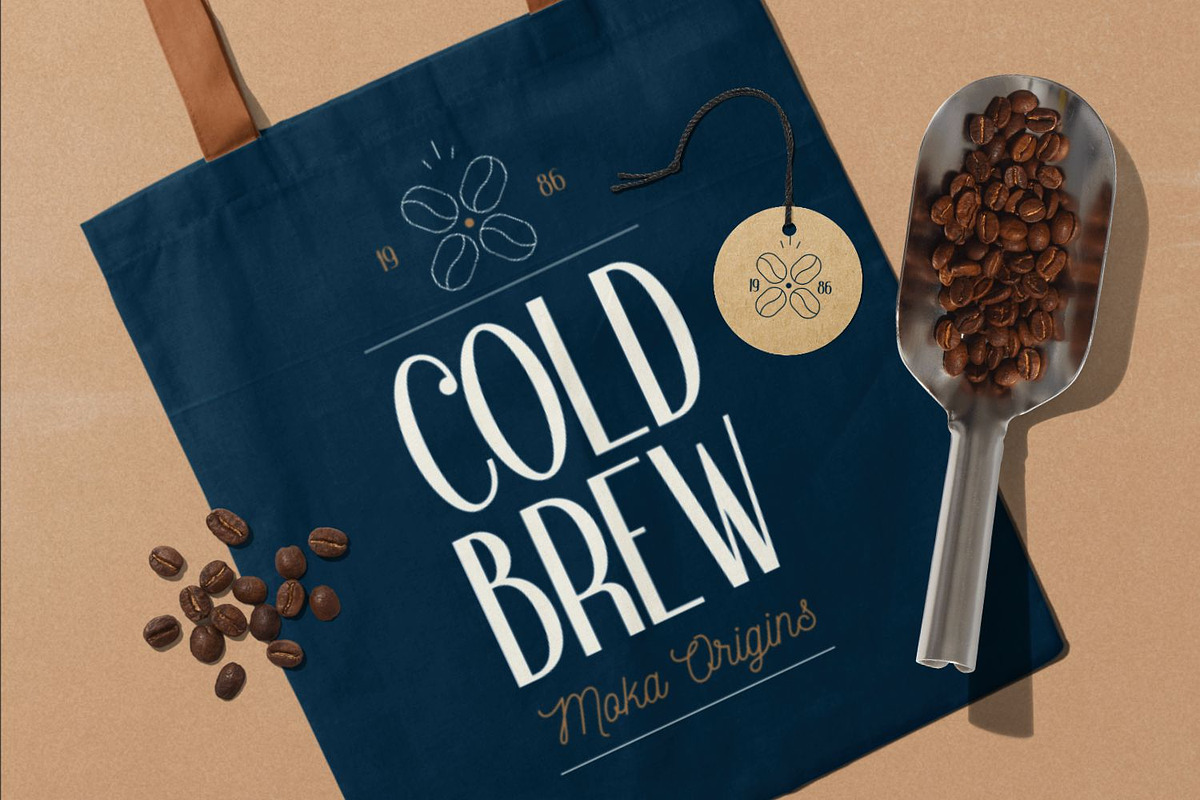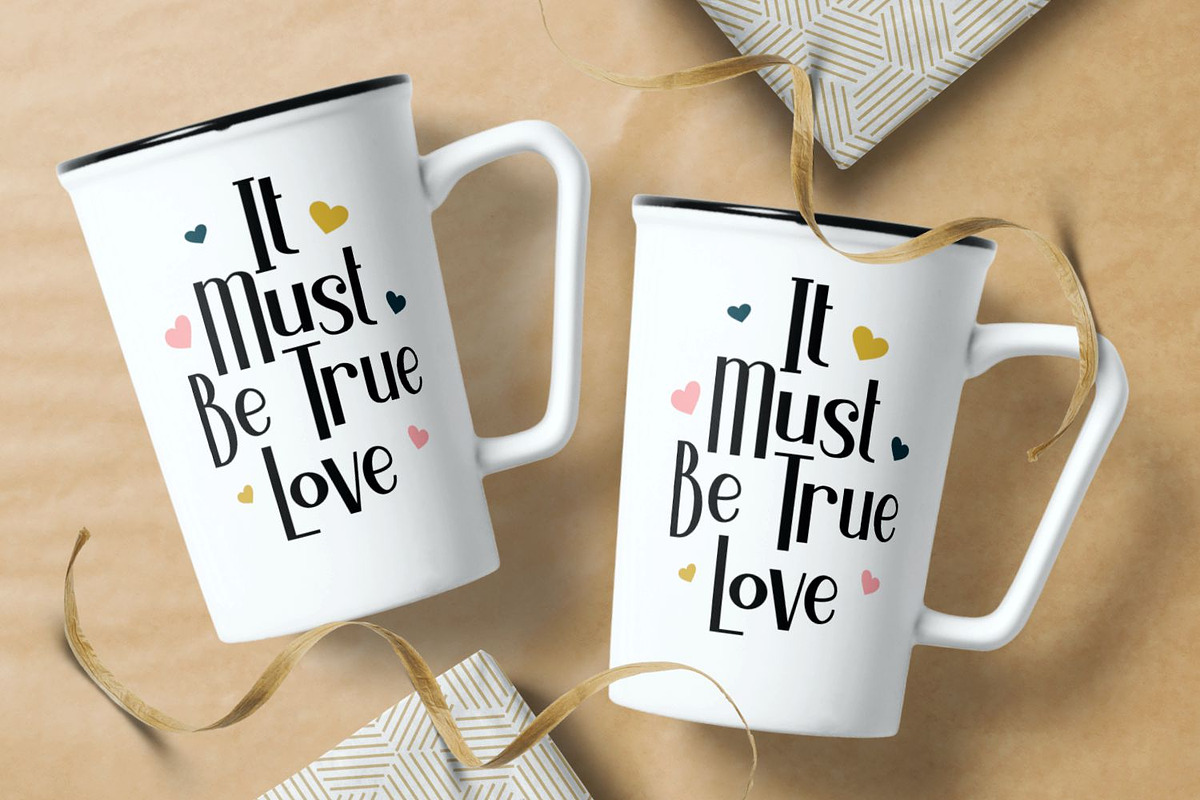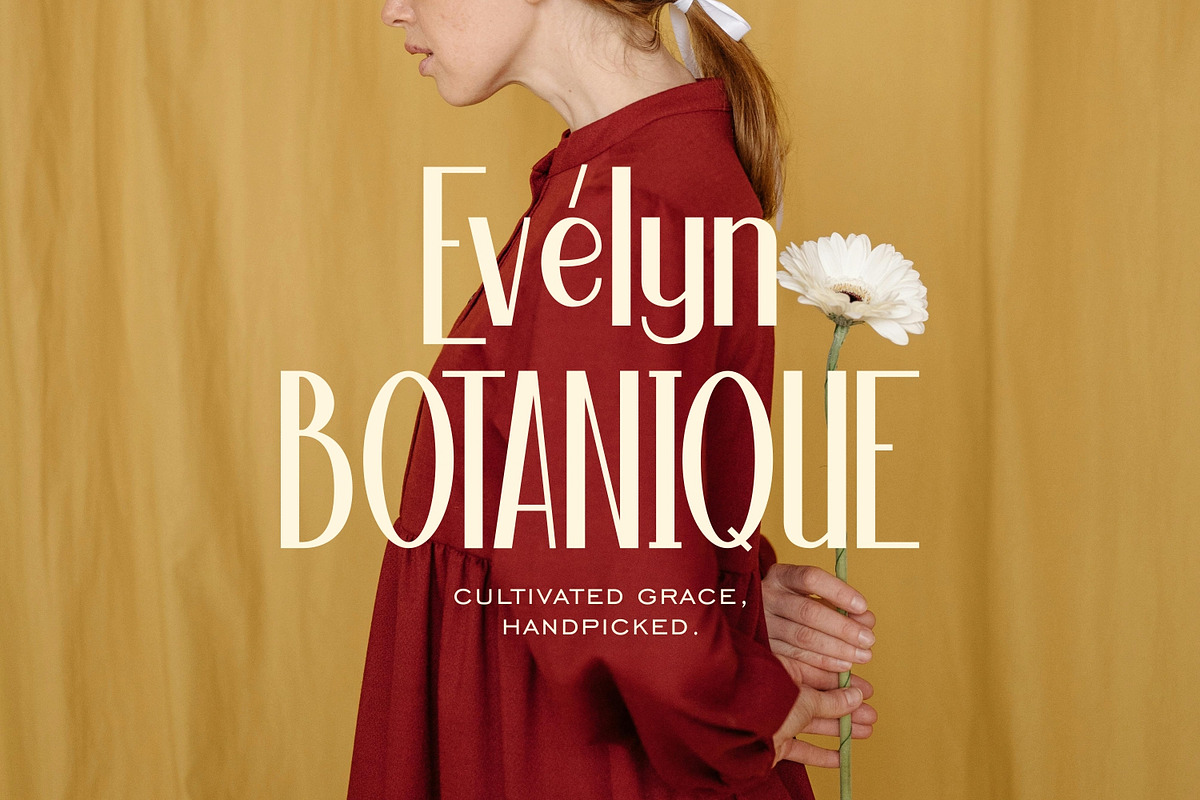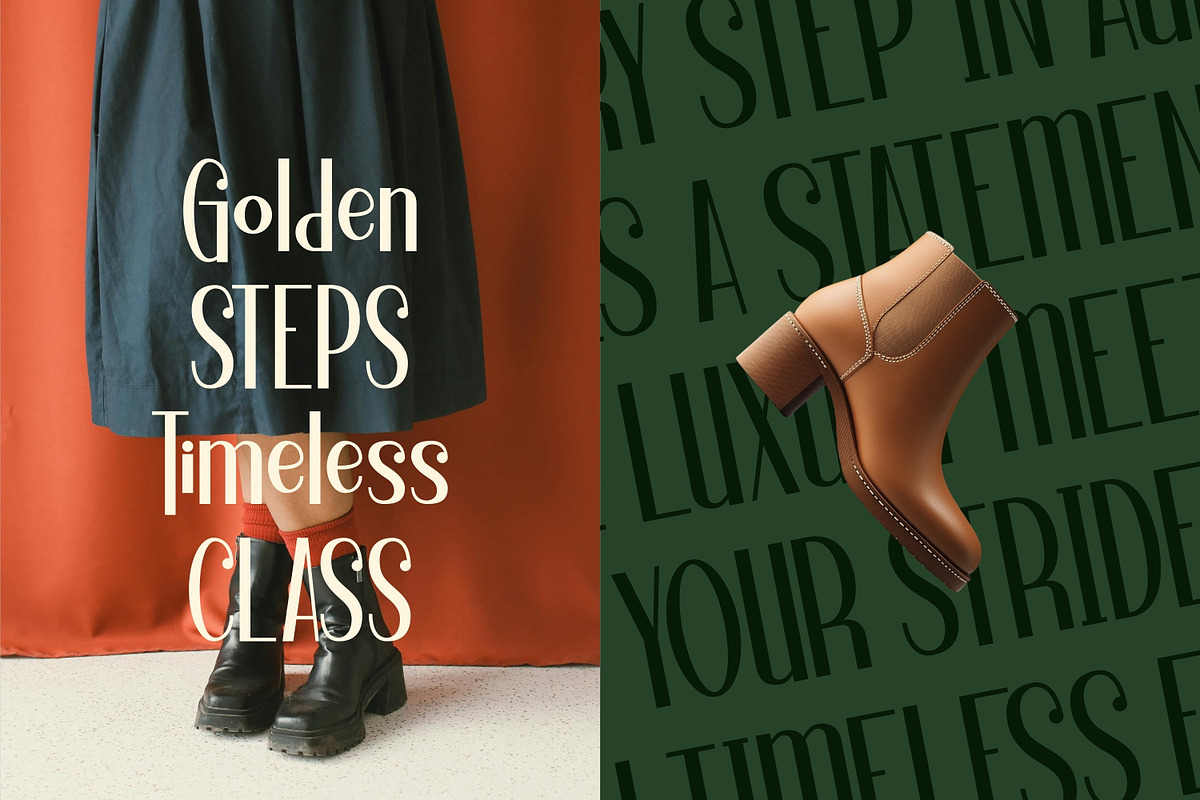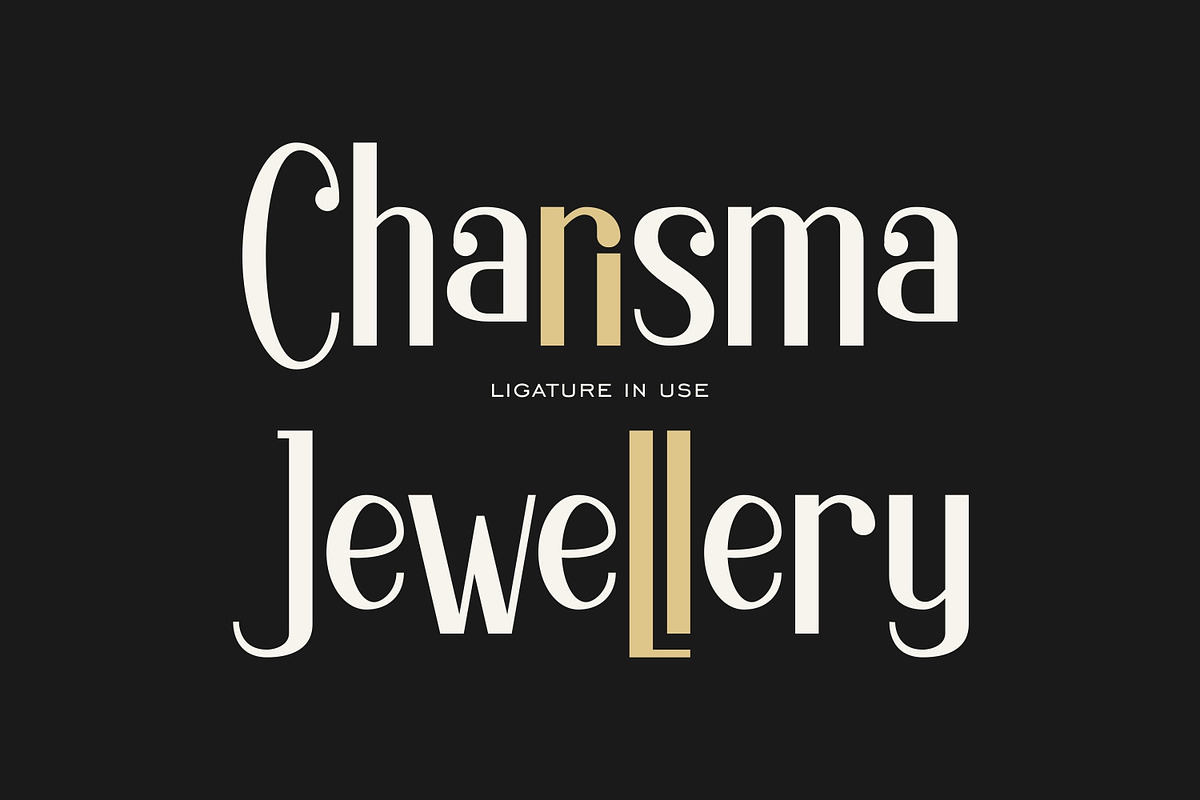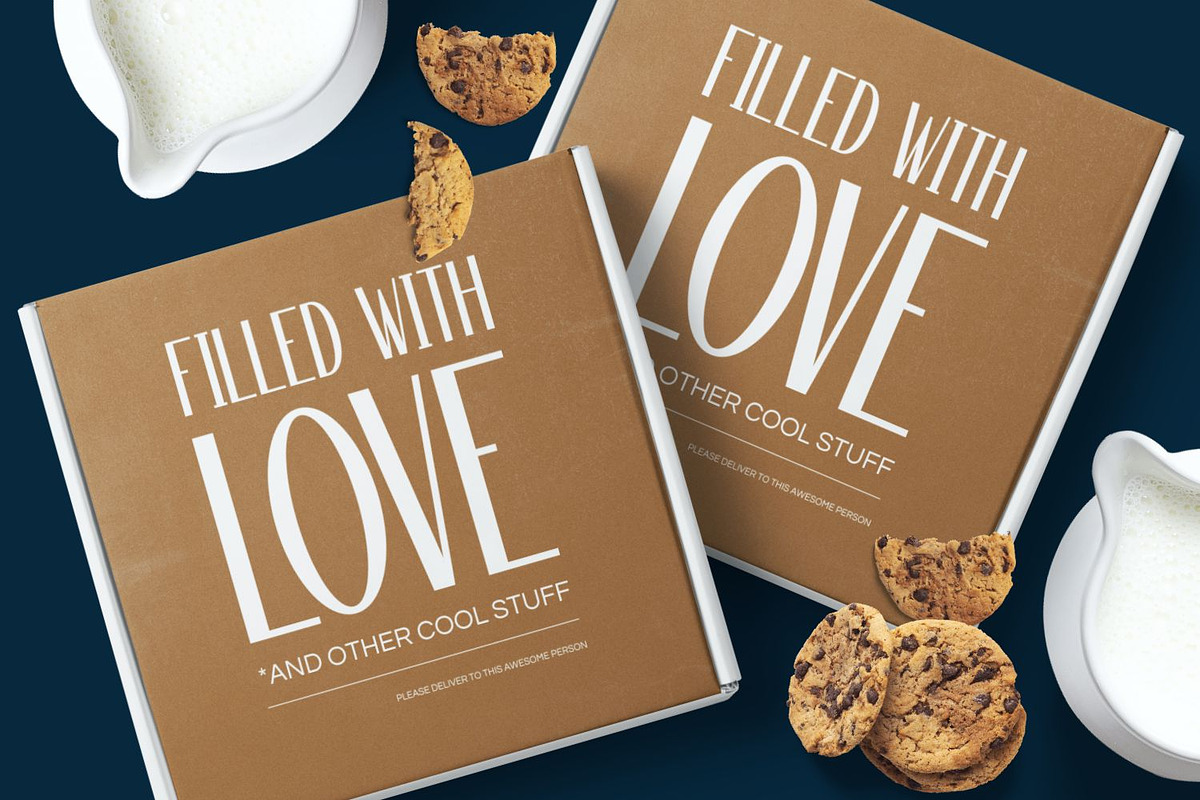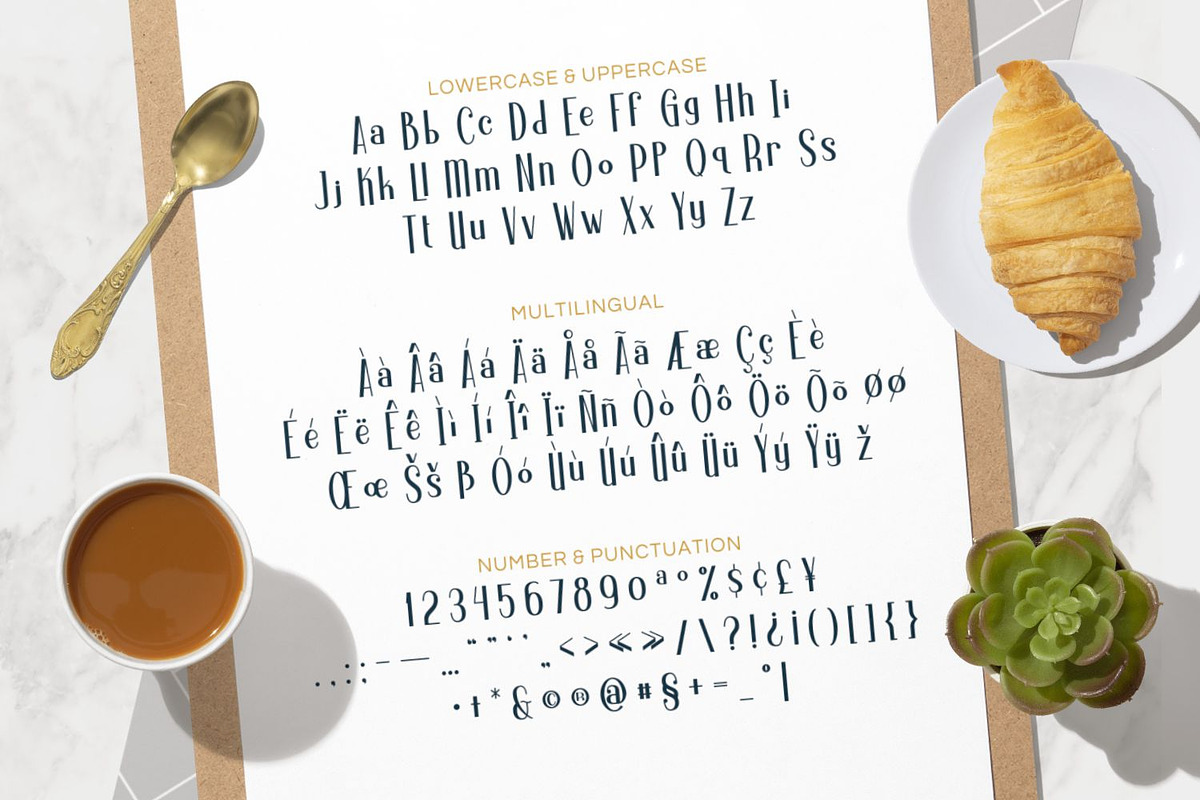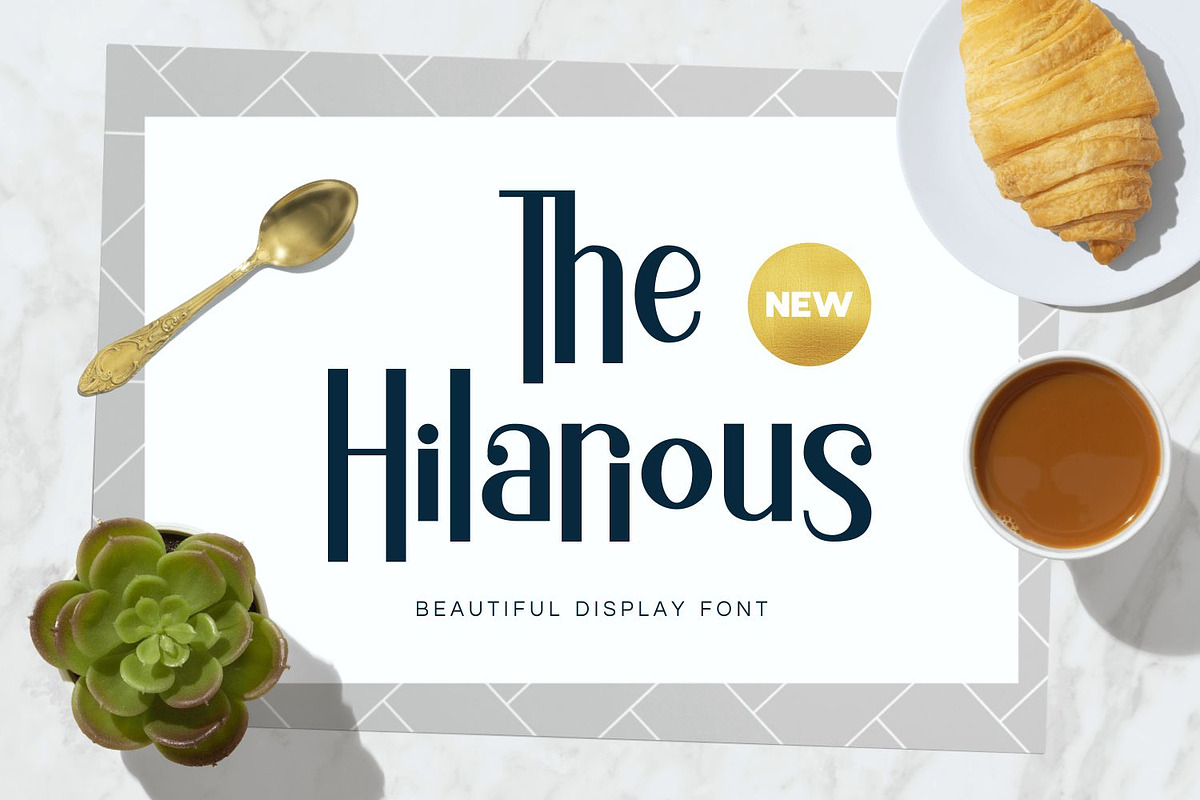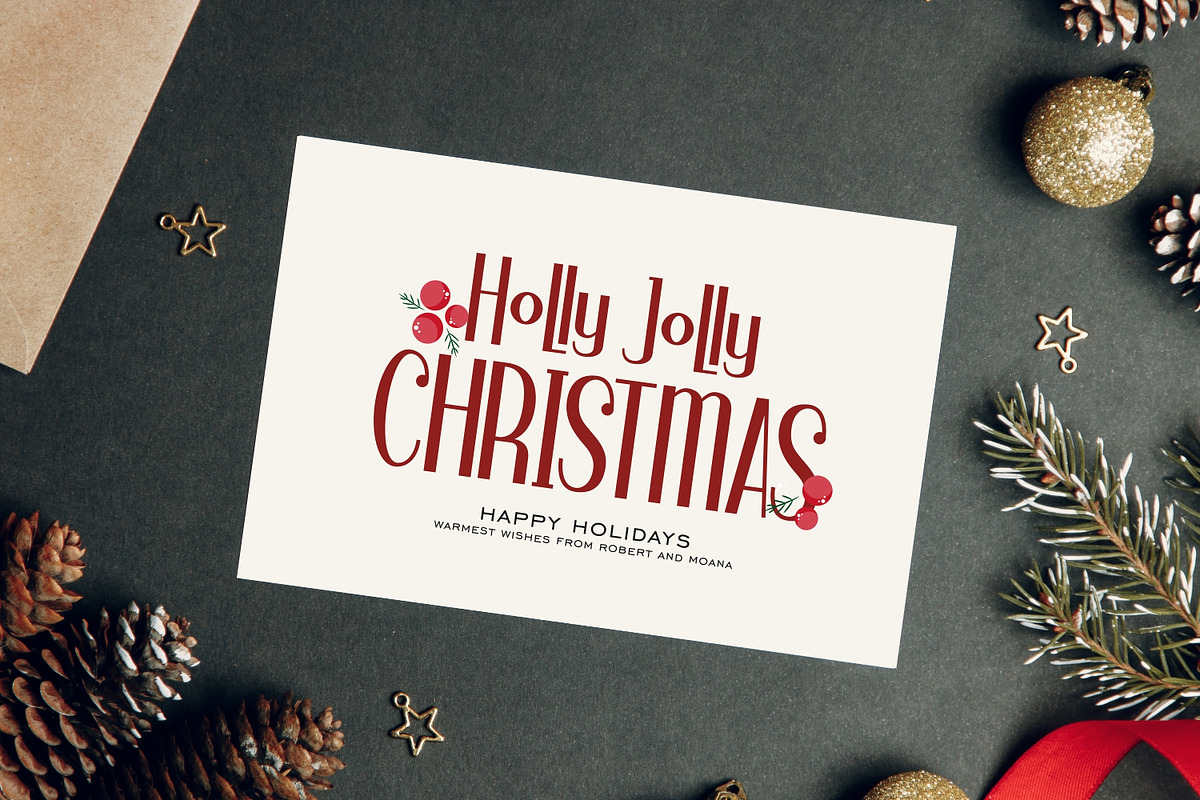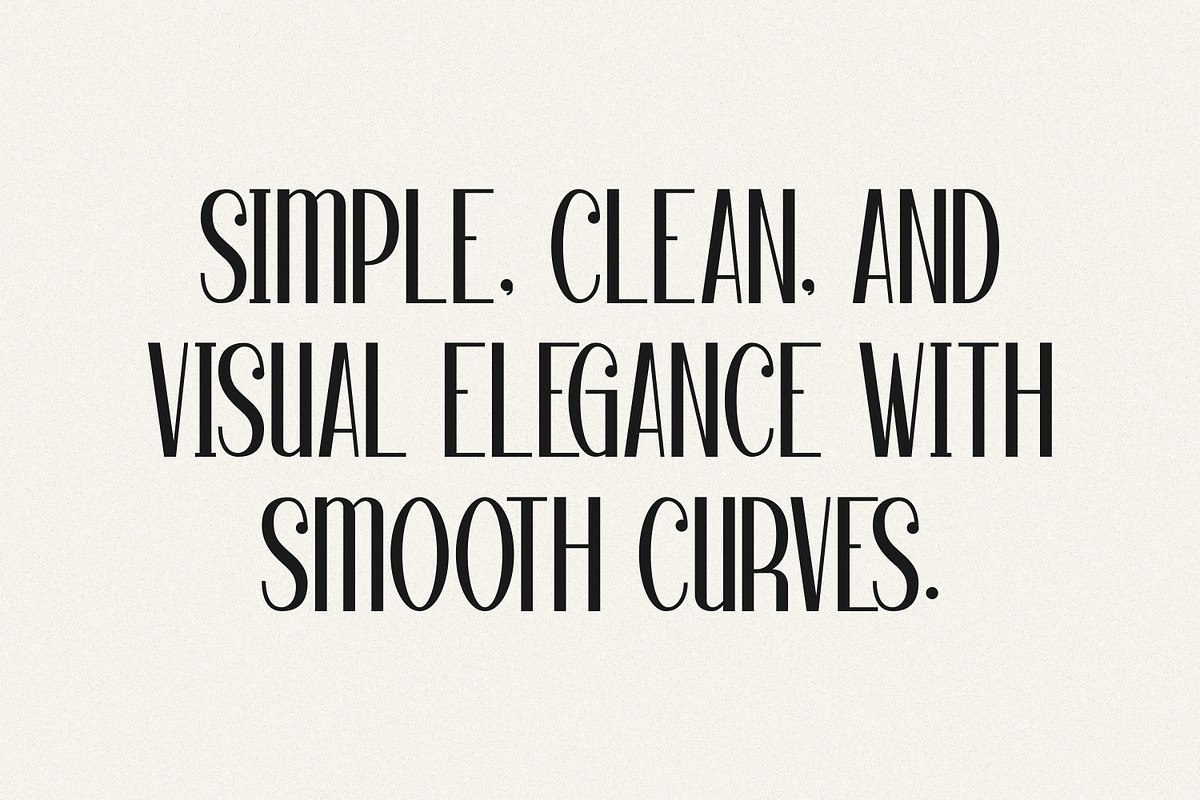
The Hilarious - Display Sans Serif
Add a touch of playful elegance to your designs with The Hilarious, a condensed display font defined by its smooth curves and vintage charm.
The Hilarious a beautifully crafted sans serif typeface that walks the fine line between quirky fun and timeless sophistication. With its tall, condensed structure and unique character shapes, this font is designed to grab attention without shouting.
The Hilarious features distinct, high contrast strokes and visual elegance with smooth curves, making it an excellent choice for designers looking to break away from standard rigid sans serifs. It comes packed with beautiful ligatures that add a custom, hand lettered feel to any word you type.
Whether you are designing a chic fashion editorial, festive holiday greeting cards, organic product packaging, or catchy social media quotes, The Hilarious adapts perfectly. Its versatile personality allows it to look retro and nostalgic in one context, yet modern and clean in another.
- Christmas and Holidays: Greeting cards, gift tags, seasonal social media posts, and event flyers.
- Branding and Logos: Create memorable wordmarks with unique ligatures.
- Editorial Design: distinctive headlines for magazines and lookbooks.
- Packaging: Stands out on boxes, labels, and coffee mugs.
- Invitations: Adds a warm, inviting tone to weddings and events.
- Uppercase and Lowecase Characters.
- Numerals and Punctuations.
- Alternates and Ligatures.
- Multilingual Support.